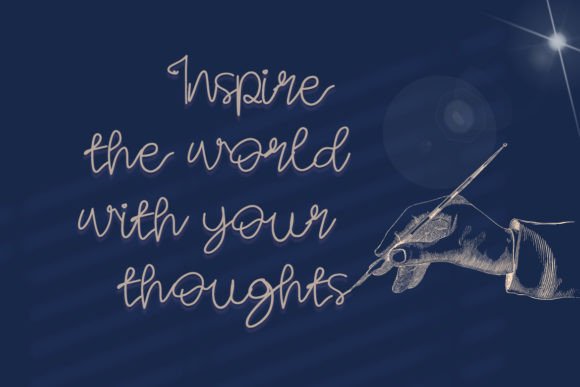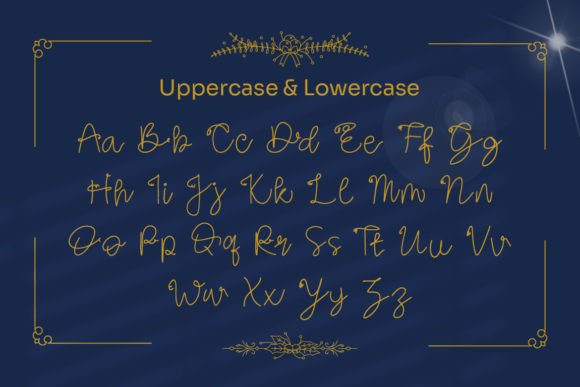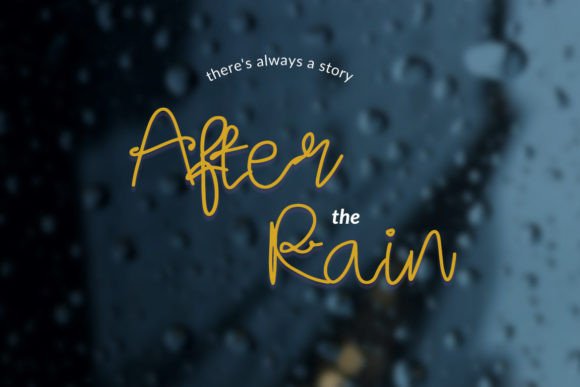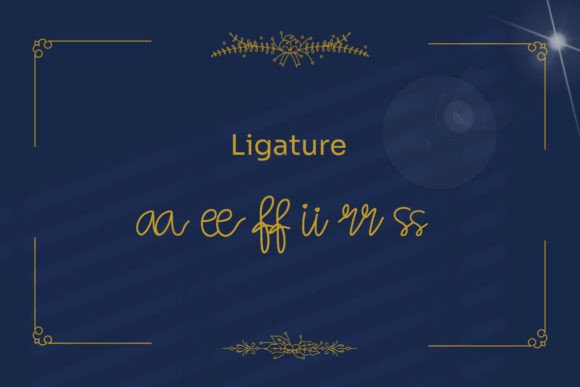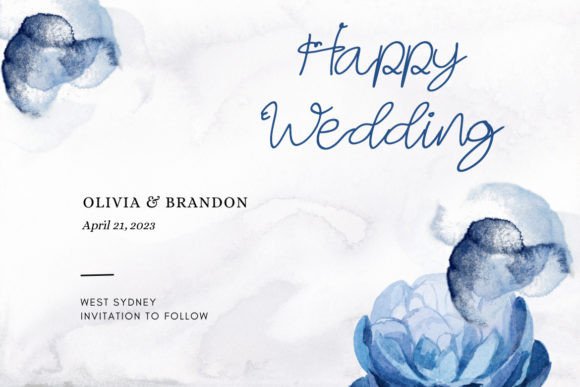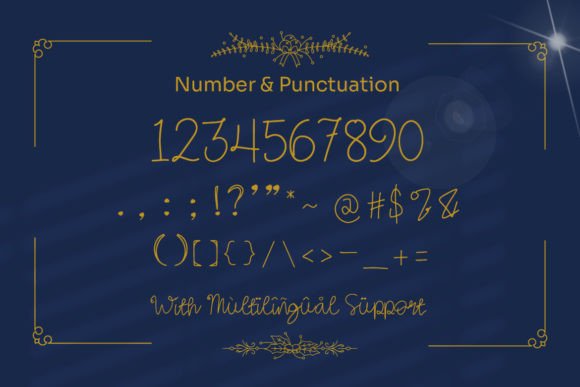
Introduction to Lessie Font
Lessie is a casual and refreshing handwritten font that captures the simple pleasures of summer.
Its handwritten style and playful curves create a sense of laid-back charm and authenticity, making it an ideal choice for food packaging, farmerโs market signage, and other design projects that evoke a sense of freshness and simplicity .